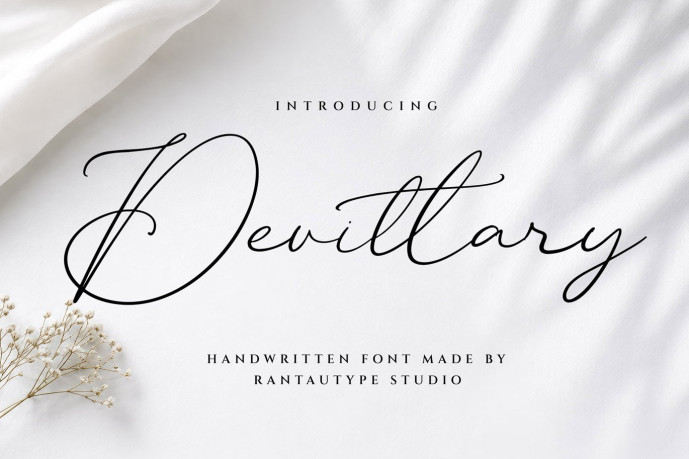
Devittary Handwritten Font
Designer: Yudi Pratama Chandra
Devittary is luxury signature script font that embodies elegance, sophistication, and timeless beauty. Devittary is a perfectly choice for any creative endeavor, creating, modern, lifestyle design such as logotype, title, cover, branding, invitations, wedding designs, display and magazine, social media posts, advertisements, printed quotes, product packaging, corporate brand, wedding invitations, product designs, labels, photography, watermarks, special events and any other project with elegant touch.